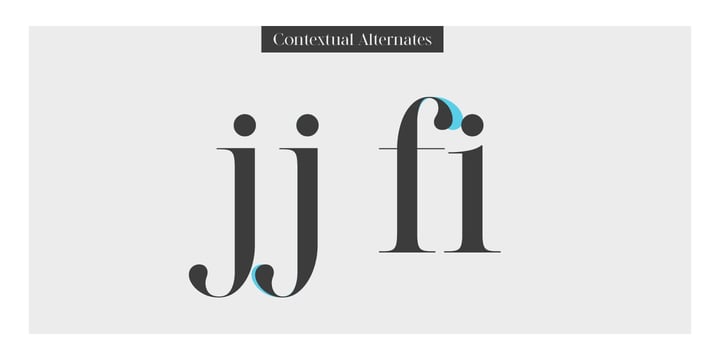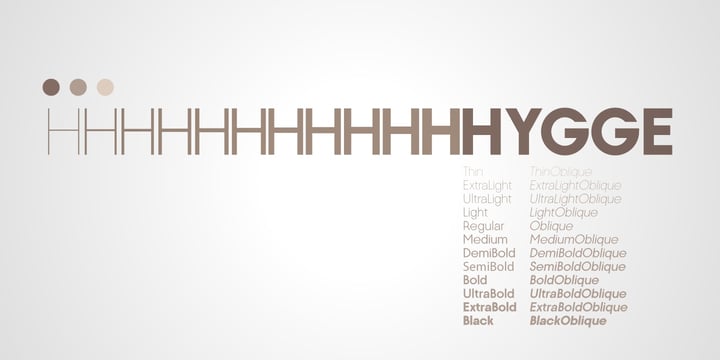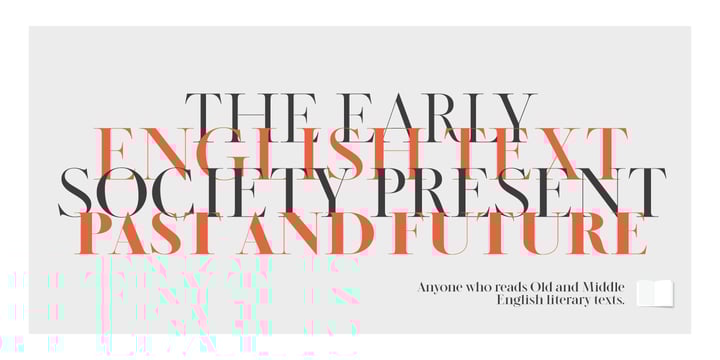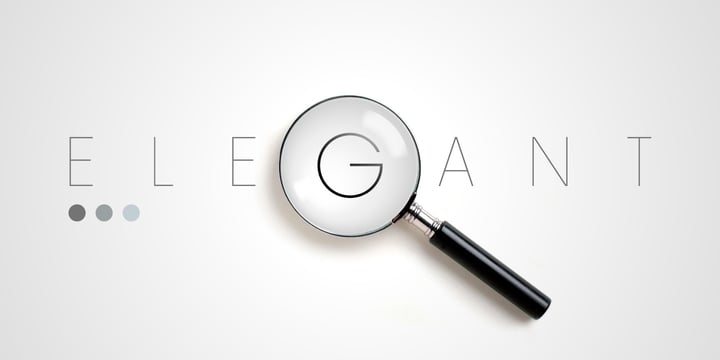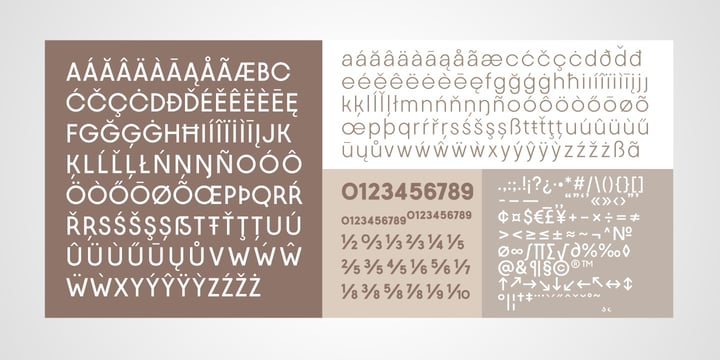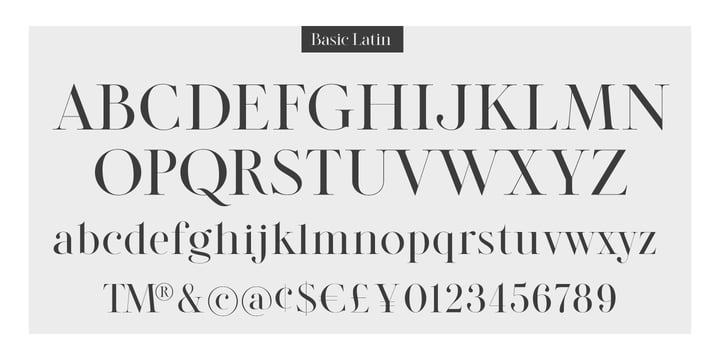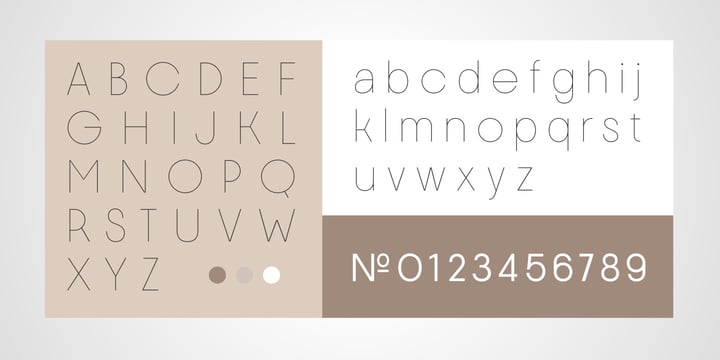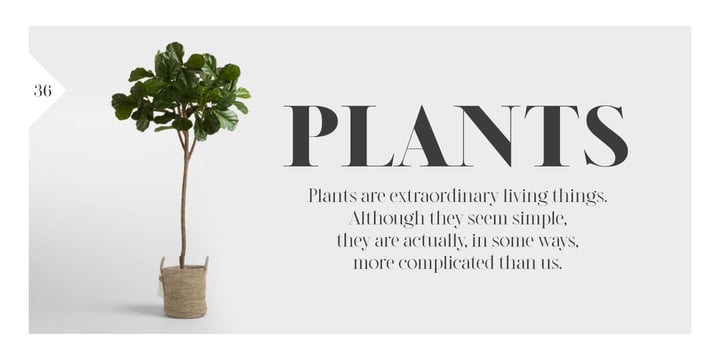
Modern Editorial Duo
Modern Editorial Duo brings together two contrasting yet contemporary typefaces designed for modern editorial and branding work. The bundle features a high-contrast serif with elegant, expressive details and a modern sans serif with wide proportions and refined thin strokes. Together, they offer designers a flexible typographic toolkit for headlines, subheads, layouts, and visual storytelling. This duo is united by a shared modern sensibility rather than strict pairing rules, making it suitable for fashion editorials, magazines, premium branding, cultural projects, and sophisticated digital and print designs.